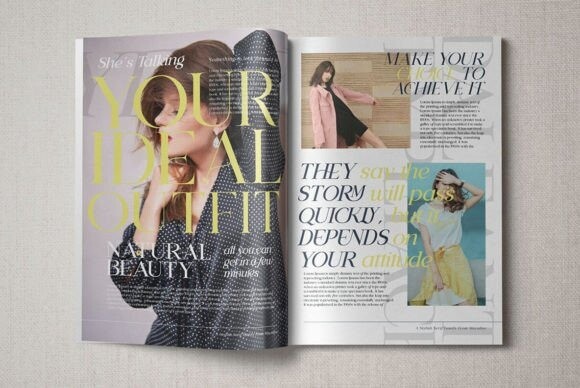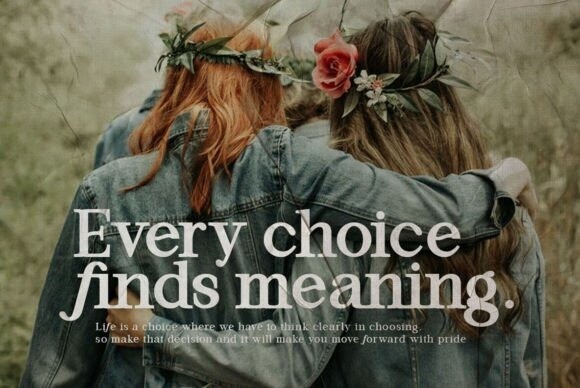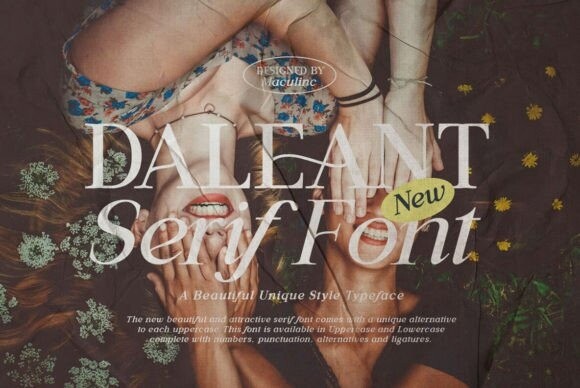
Daleant Font
Daleant Font is a beautiful and attractive serif font that brings a touch of elegance to your projects. With its unique alternatives, it adds a distinctive flair to your text, making it stand out effortlessly. Whether you’re working on invitations, headers, or any creative endeavor, Daleant’s charm and versatility make it a delightful choice for adding a sophisticated touch to your designs.